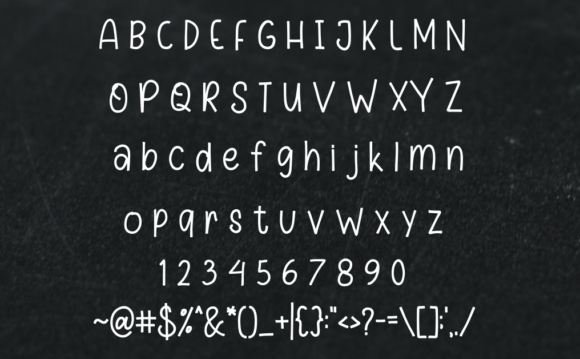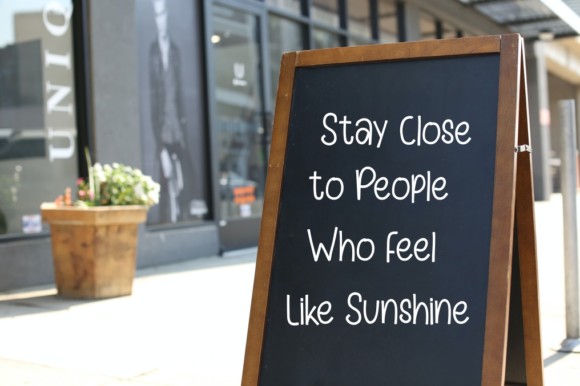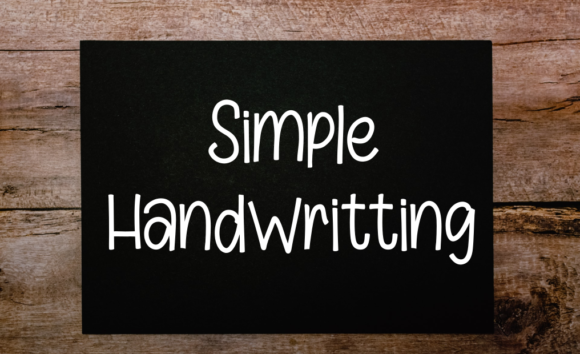
Student Lettering Font
Student Lettering typeface is as sweet as it sounds. This handwritten font features slim and simple drawn lines that will surely add a personal element to your next card, craft, or print!